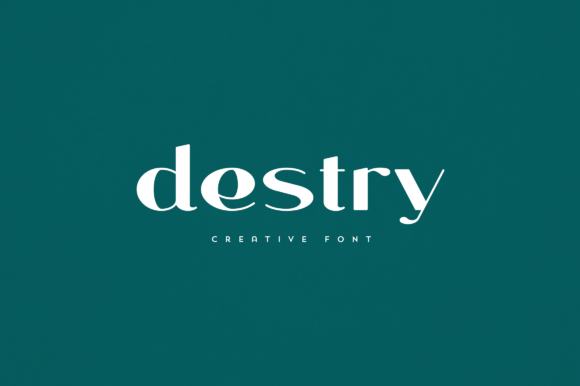
Step into a world of captivating elegance with Destry Font, the ultimate serif typeface designed to transform your digital creations into masterpieces. Experience the allure of timeless beauty as Destry weaves its charm into every letter, number, and symbol, leaving an indelible mark on your audience.
Destry's graceful curves and delicate serifs exude an air of sophistication, making it the perfect choice for branding projects, home-ware designs, product packaging, and magazine headers. Its versatile nature extends to invitations, social media posts, and digital marketing campaigns, ensuring that your message shines through with unparalleled clarity and impact.
Dive into the endless possibilities that Destry unveils. Its graceful lines and balanced proportions render it an exceptional choice for crafting logos that exude professionalism and memorability. Let Destry elevate your brand identity, making it stand out from the crowd with an air of timeless elegance.
As you explore the depths of Destry's versatility, you'll discover a world of creative opportunities. Its seamless integration with backgrounds and images creates captivating text overlays that captivate attention and leave a lasting impression. Unleash your imagination and weave a tapestry of words that resonate with your audience, leaving them spellbound by the sheer beauty of your creations.
Don't settle for ordinary fonts that blend into the background. Embrace the exquisite artistry of Destry and watch as your designs flourish. Its intricate details and refined aesthetic will transform your typography into a symphony of visual delight, leaving your audience captivated and eager for more.
Seize this opportunity to elevate your designs to new heights with Destry, the font that embodies elegance, versatility, and timeless appeal. As you immerse yourself in its creative embrace, you'll discover a boundless realm of possibilities, transforming your digital creations into works of art that leave an enduring legacy of beauty and sophistication.